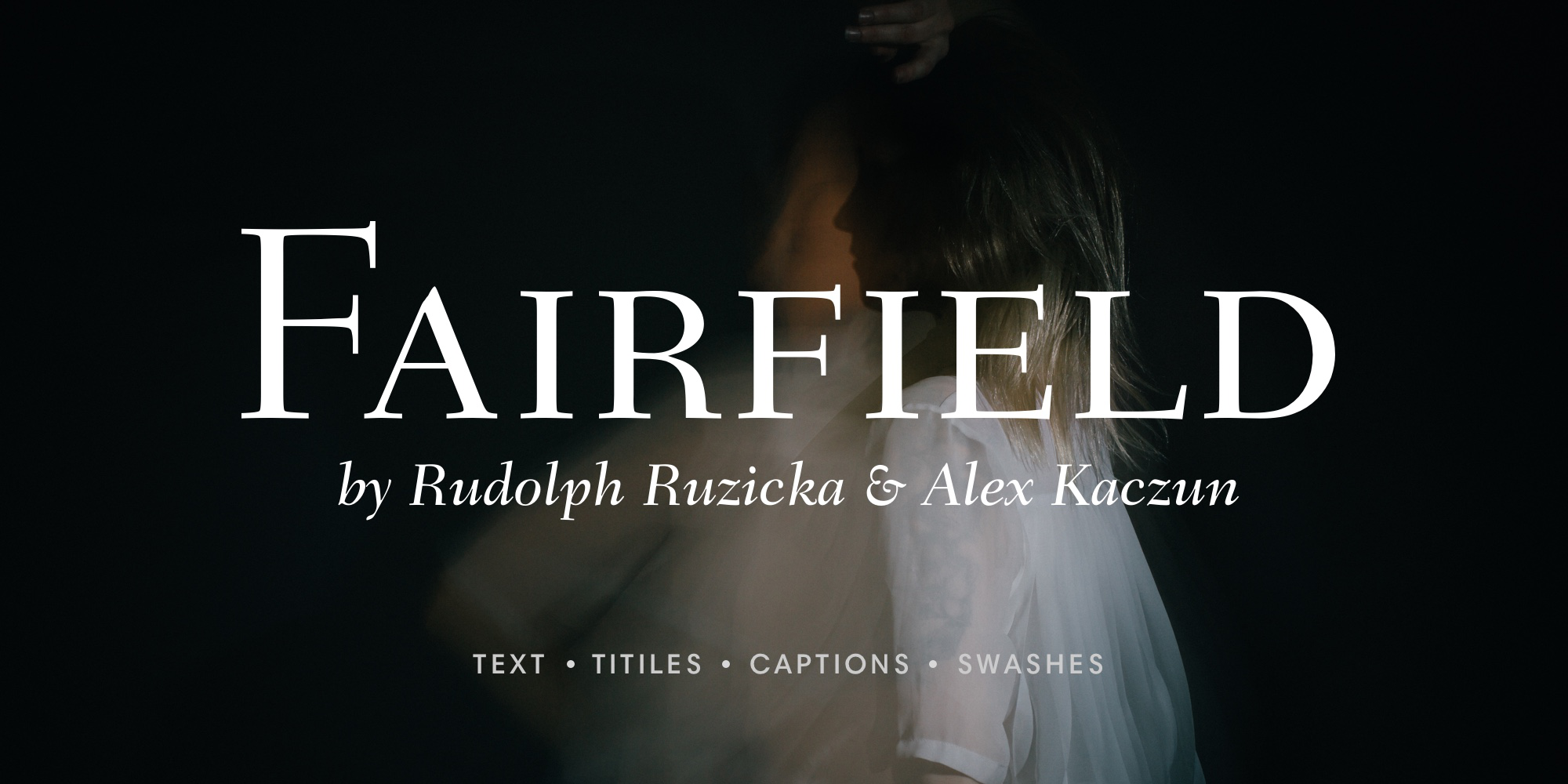
Fairfield Font Free Download is a classic and highly readable serif typeface, known for its elegant proportions and traditional appeal. It's perfectly suited for designs that aim to convey a sense of heritage, literary sophistication, or timeless clarity. Imagine it gracing distinguished book covers, professional corporate reports, high-quality magazine articles, or elegant editorial layouts. Its clear, well-defined serifs and balanced letterforms also make it an excellent choice for academic publications, formal invitations, and any project where a sense of established quality and comfortable long-form reading is paramount. Fairfield Font offers the stylistic grace and robust legibility to elevate your creative vision.
What makes Fairfield Font truly exciting is its engineering for supreme readability and its enduring aesthetic. Designed to facilitate effortless reading in continuous text, it features meticulously crafted characters that flow together harmoniously, guiding the reader's eye smoothly across the page. This isn't just another serif font; it's a precisely designed typeface that brings a unique blend of traditional beauty and practical performance to any content. Designers appreciate its strong visual consistency and how it can effortlessly create a polished and trustworthy experience, making it a reliable choice for designs that prioritize both aesthetic quality and unwavering clarity for their audience.
The Fairfield Font family is typically comprehensive, offering an extensive range of weights and styles to ensure maximum versatility across diverse design needs. You can generally expect to find a full spectrum of weights, such as Regular, Italic, Bold, and Bold Italic, with many families also including SemiBold or Medium variations for nuanced emphasis. Furthermore, it often comes with a rich set of OpenType features, including ligatures, small caps, and various figure styles, enhancing its capability for professional typesetting. This comprehensive family ensures that Fairfield Font Free Download is a valuable asset for any designer or publisher seeking optimal readability and typographic control in a classic style.